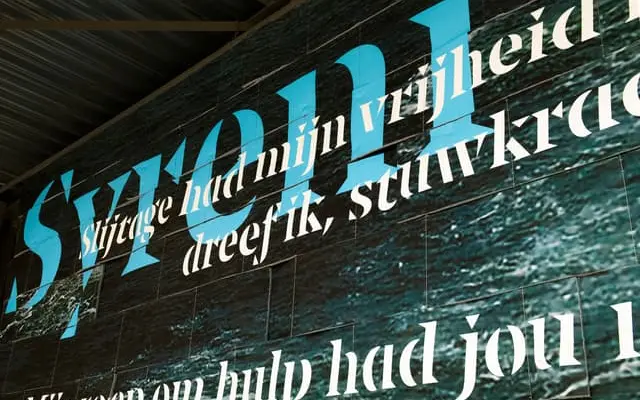
A four-weight serif from Typotheque with matching italics, suited to text-setting across editorial and book contexts.
Maro offers four weights from Light to Bold, each with a corresponding italic, giving it a workable range for continuous text and display use. The specimen names suggest broad multilingual intent, though confirmed script coverage is limited to Latin from the available page content. Released by Typotheque, whose catalogue tends towards considered text typefaces with strong typographic underpinning.
The page does not provide explicit classification, but the specimen settings and style naming suggest a refined serif with classical proportions, consistent with a transitional or humanist serif tradition.